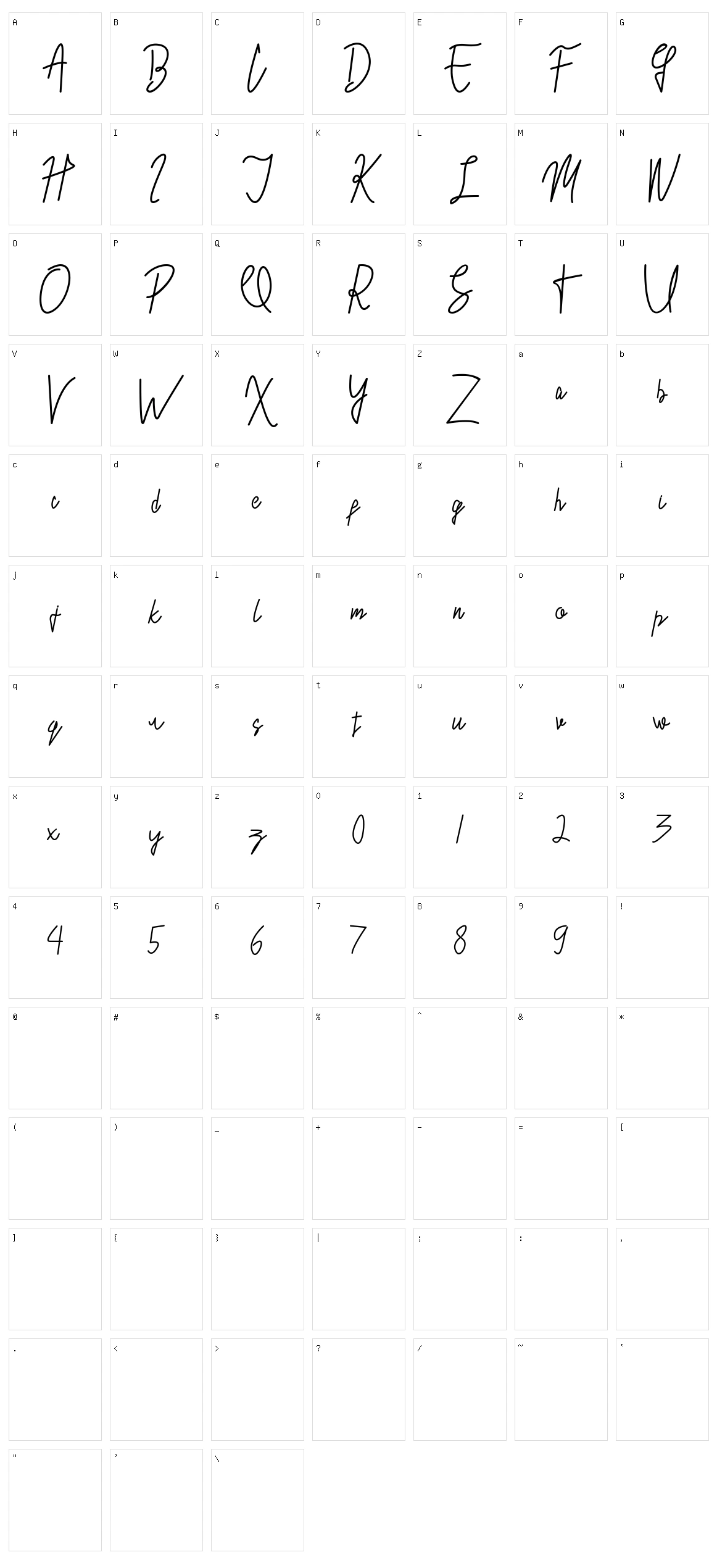
This is Masyasih Script font Typeface. This font is suitable for you to use for signatures, some posters, and feminine media. However, it is undeniable that this font can be used for any media, as long as you can adjust it!
This font was created using pencil strokes on paper, then scanned using a smartphone camera and traced in Adobe Illustrator.
This font only has 76 Glyphs and 14 ligatures in it.